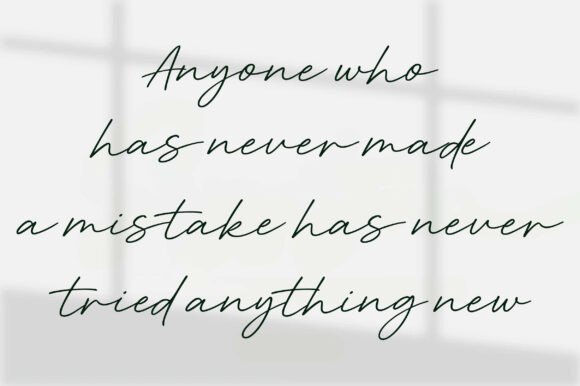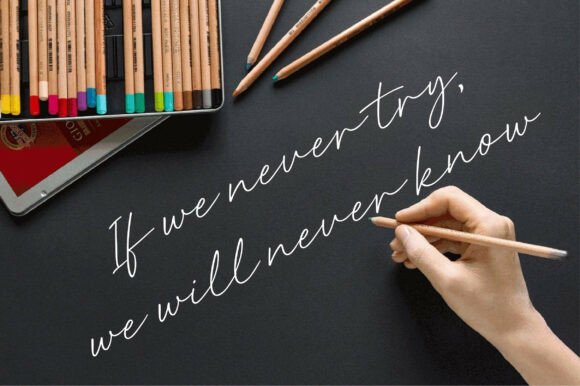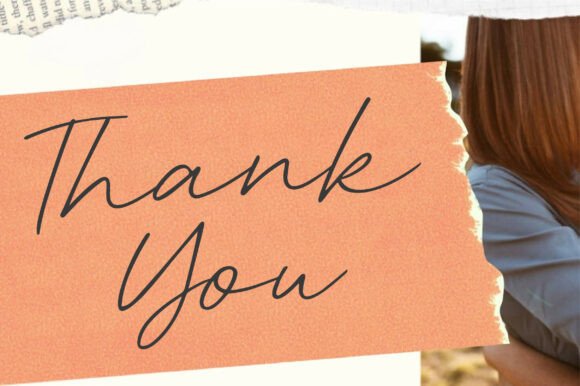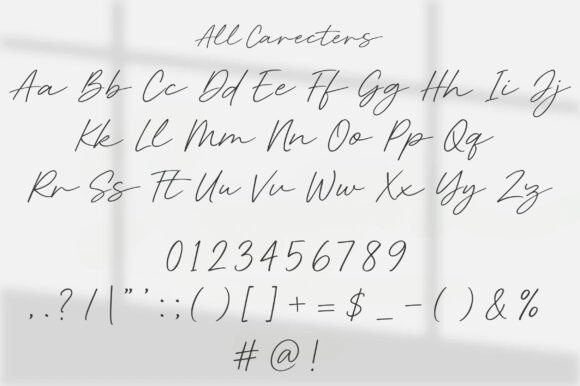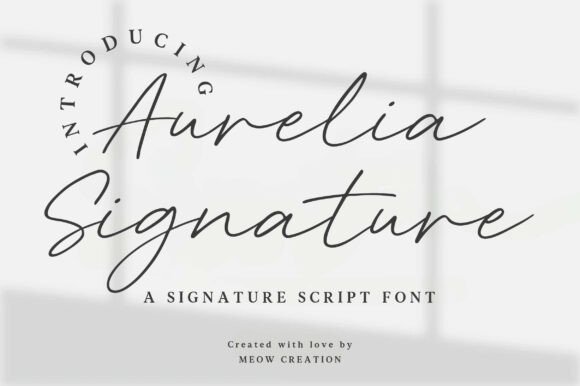
The Perfect Signature: Elevating Your Brand with the Aurelia Signature Font
Imagine you’re brainstorming ideas for a new logo, and the perfect concept suddenly hits you. The design flows effortlessly, and you know you’ve found the perfect combination of style and sophistication. But, how do you turn that vision into reality? The key lies in the typography, and that’s where the Aurelia Signature Font comes in – a beautiful, modern script font that captures the essence of a genuine handwritten signature.
This exquisite font features thin, clean lines, subtle irregularities, and a beautiful connection between characters, perfectly mimicking quick, natural penmanship. As a designer, you’ll appreciate the versatility and value that the Aurelia Signature Font brings to your projects. With its high-end, personalized aesthetic, it’s the ideal choice for creating stunning logos, designing chic wedding stationery, and branding high-end products.
Aurelia Signature Font Key Features
- Font Family: Aurelia Signature Font is a modern, elegant script font, ideal for signatures and handwritten text.
- Unique Characteristics: Features a unique, flowing script design with subtle flair and elegance, perfect for adding a personal touch to documents and designs.
Aurelia Signature Font Review
I recently had the chance to work with the Aurelia Signature Font, and I must say it’s a mixed bag. ✨ One thing that works well is its elegant, modern design. It’s perfect for creating a sophisticated and professional look in logos, branding materials, and even digital products.
The font’s versatility is another standout feature. ✨ It comes in a range of weights, from light to bold, making it easy to customize and adapt to different design styles.
However, there are some limitations to consider. ⚠️ The font is not as extensive as some other popular font families, with only a limited number of styles and variations available. This may be a drawback for designers who need more flexibility and options.
Additionally, ⚠️ the font’s performance may vary depending on the device and screen resolution. I noticed some slight rendering issues on lower-end devices, which could impact the overall user experience.
Overall, the Aurelia Signature Font is a solid choice for designers looking for a clean, modern font. While it may have some limitations, its elegant design and versatility make it a great option for a wide range of projects.
- Elegant, modern design
- Versatile with multiple weights
- Perfect for logos, branding materials, and digital products
- May have limited options for designers requiring extensive font families
- Performance may vary on lower-end devices
Getting the Most Out of the Aurelia Signature Font
For the best results, use the Aurelia Signature Font in conjunction with a high-quality image or background. Experiment with different font sizes and styles to create a unique and eye-catching design.
The Aurelia Signature Font is ideal for use in branding, logos, and marketing materials. It can also be used for creating invitations, menus, and other printed materials where a touch of elegance is desired.